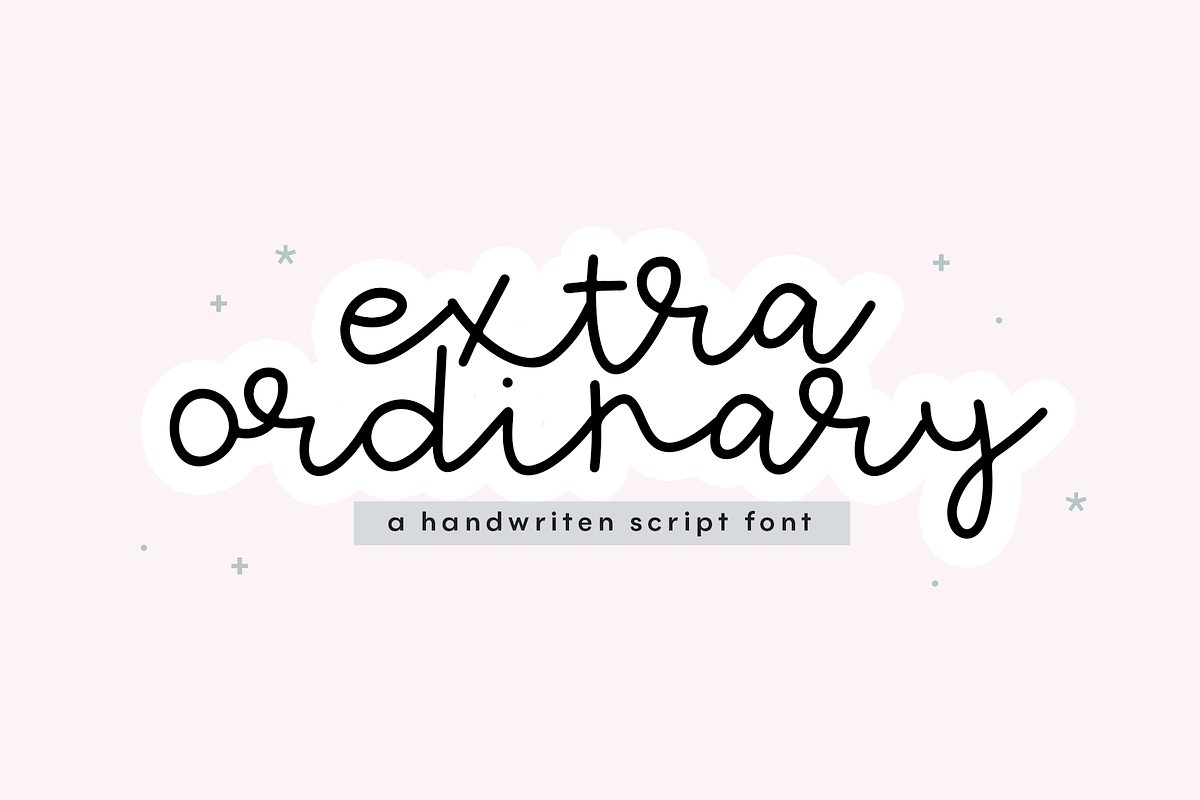
Looking to make a bold, stylish statement with your typography? Extraordinary Script Font Free Download is the ultimate blend of elegance and expressive hand-drawn flair. With its flowing strokes and graceful curves, this font adds a high-end, personal touch to logos, wedding invitations, branding projects, and social media graphics.
Crafted for designers who want to leave a lasting impression, Extraordinary comes loaded with a full set of upper and lowercase letters, numbers, punctuation, and multilingual support. Its organic flow and modern calligraphy style make it perfect for everything from romantic to luxury-themed designs.